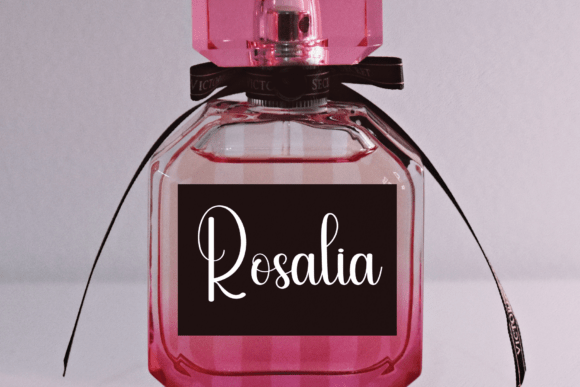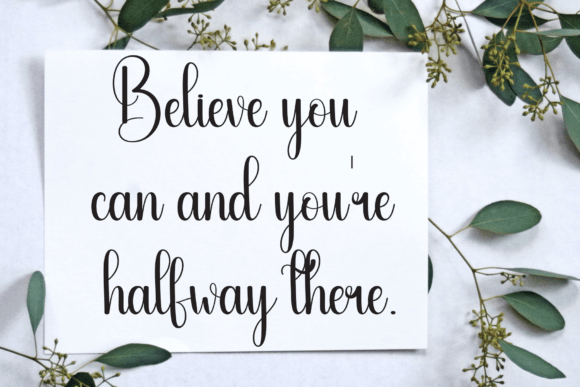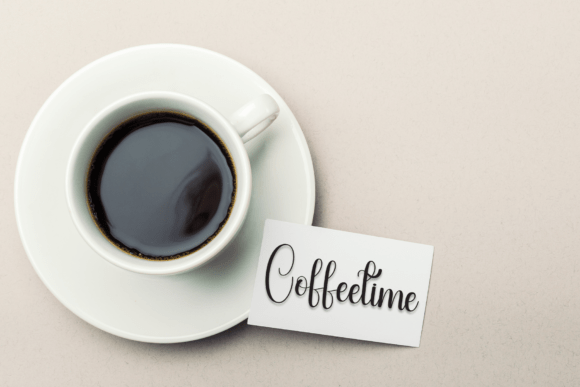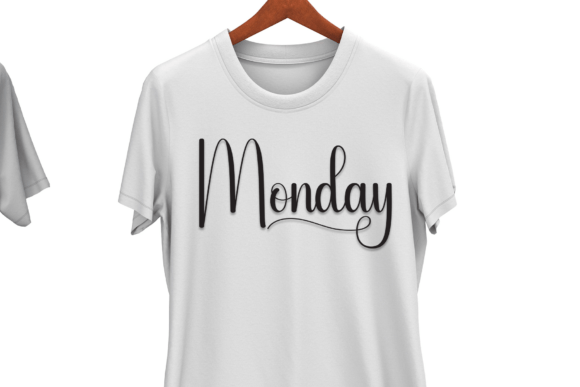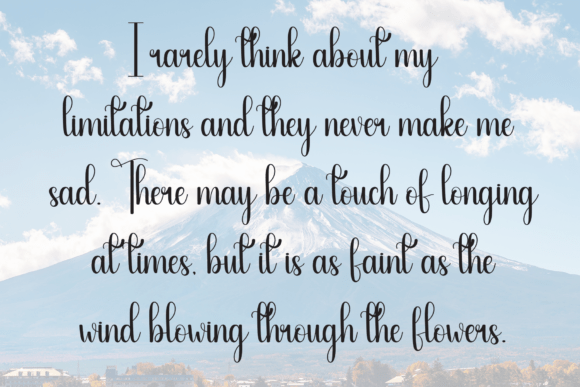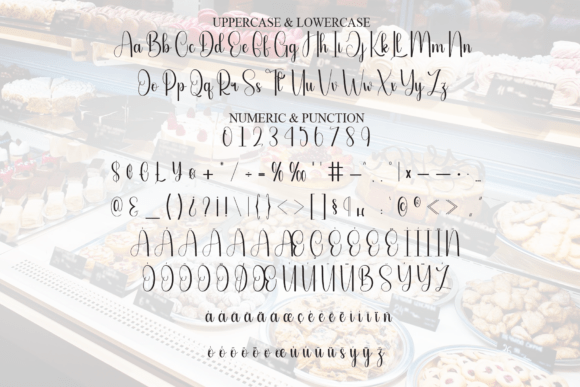
Bakery Font: The Sweetest Addition to Your Design
Are you looking for a font that can add a touch of whimsy and charm to your design? Look no further than Bakery Font, a delightful handwritten script font that is sure to capture the essence of artisanal charm and warmth. With its soft curves and elegant ligatures, Bakery Font is perfect for designers and crafters who want to add a personal touch to their branding, logos, invitations, packaging, and display work.
The Characteristics of Bakery Font
Bakery Font is a beautifully crafted handwritten script font that features soft curves and elegant ligatures. The font has a whimsical flair that makes it perfect for designs that require a touch of personality and charm. One of the standout features of Bakery Font is the extended swash on the ‘y’, which adds a sweet, sweeping motion to the font. This feature captures the essence of artisanal charm and warmth, making it perfect for designs that require a personal touch.
Uses for Bakery Font
Bakery Font is a versatile font that can be used for a variety of design projects. Here are some of the ways you can use Bakery Font:
- Branding: Bakery Font is perfect for creating a unique and memorable brand identity. The font’s soft curves and elegant ligatures make it easy to read and recognize, making it perfect for logos, business cards, and letterheads.
- Logos: Bakery Font is a great choice for logos that require a touch of personality and charm. The font’s whimsical flair makes it perfect for businesses that want to stand out from the crowd.
- Invitations: Bakery Font is perfect for creating beautiful and unique invitations for weddings, parties, and other special events. The font’s elegant ligatures and soft curves make it easy to read and understand.
- Packaging: Bakery Font is a great choice for packaging designs that require a personal touch. The font’s whimsical flair makes it perfect for labels, tags, and other packaging materials.
- Display Work: Bakery Font is perfect for display work such as posters, banners, and signs. The font’s bold and elegant design makes it easy to read and understand, even from a distance.
Why Choose Bakery Font?
There are many reasons why you should choose Bakery Font for your design projects. Here are a few:
- Unique and Memorable: Bakery Font is a unique and memorable font that will help your design stand out from the crowd.
- Easy to Read: Bakery Font is easy to read and understand, making it perfect for designs that require a clear and concise message.
- Versatile: Bakery Font is a versatile font that can be used for a variety of design projects, from branding and logos to invitations and packaging.
- High-Quality: Bakery Font is a high-quality font that is designed to look great on any device or platform.
Tips for Using Bakery Font
Here are a few tips for using Bakery Font in your design projects:
- Use it Sparingly: Bakery Font is a bold and elegant font, so it’s best to use it sparingly to avoid overwhelming the design.
- Pair it with Other Fonts: Bakery Font pairs well with other fonts, so don’t be afraid to experiment with different font combinations.
- Use it for Headlines: Bakery Font is perfect for headlines and titles, so use it to add a touch of personality and charm to your design.
- Experiment with Colors: Bakery Font looks great in a variety of colors, so don’t be afraid to experiment with different color combinations.
Bakery Font is a delightful handwritten script font that adds a charming touch to any design. With its soft curves and elegant ligatures, it’s perfect for designers and crafters who want to add a personal touch to their branding, logos, invitations, packaging, and display work. Whether you’re looking for a unique and memorable font or a versatile font that can be used for a variety of design projects, Bakery Font is a great choice.